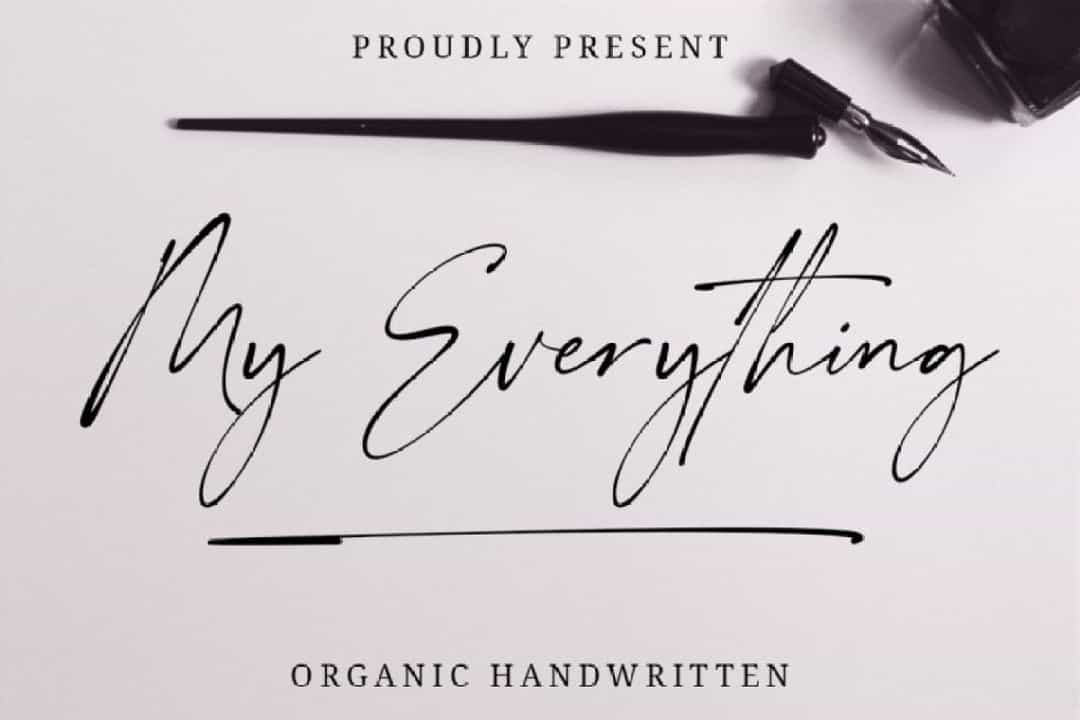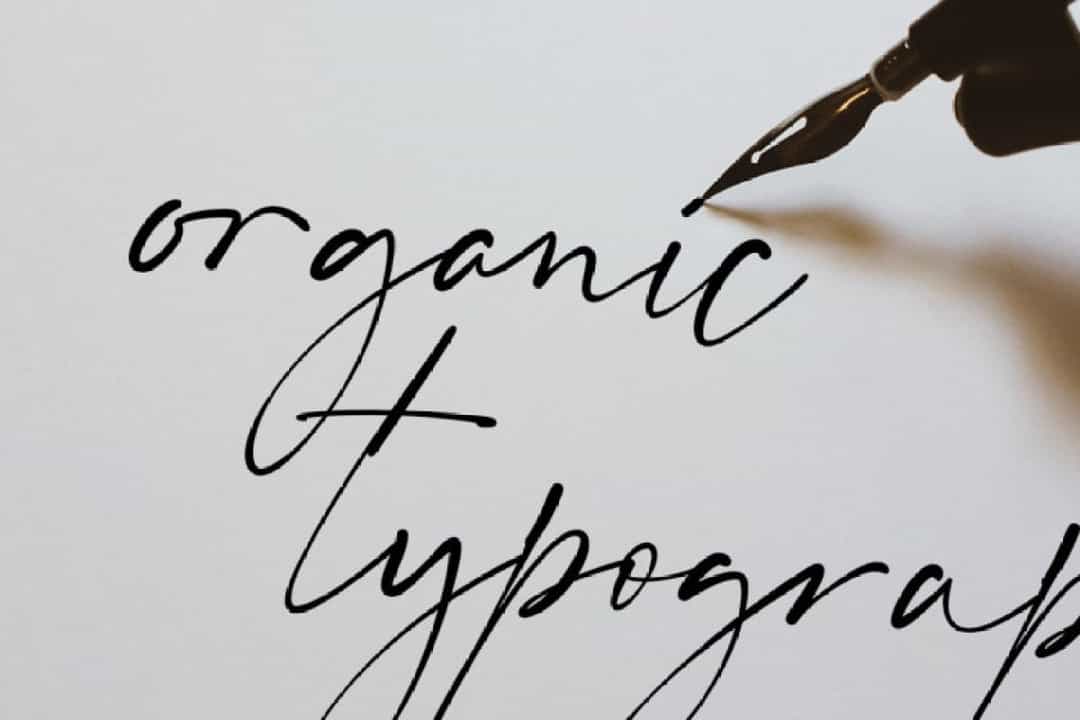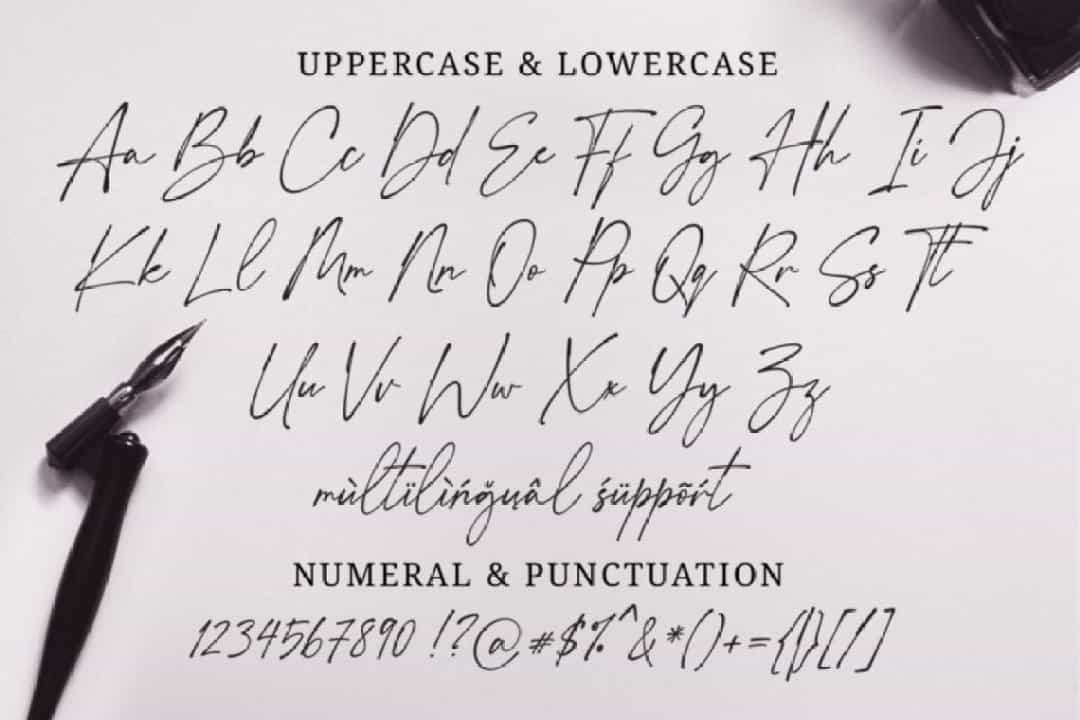
My Everything is a beautiful, classy, and very attractive handwriting script font suitable for logos, branding, wedding invitations, cards, gifts, photographs, watermarks, and product packaging, or any handwritten message. Don’t expect cute, playful or humorous logos with this font: This is why for any branding design, I will only use this font to its best effect.